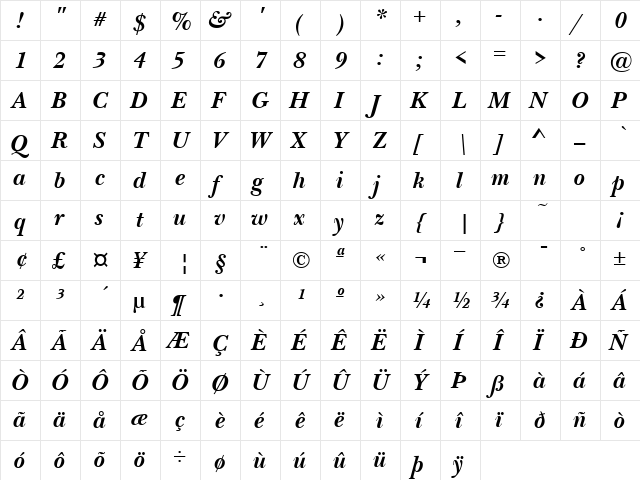
NewBaskerville BoldItalic
Design Context for NewBaskerville Typeface
NewBaskerville is a composed and adaptable typeface that performs quietly and consistently across a wide range of design contexts. The dynamic lean of this cut emphasises speed and emphasis in any layout. The heavy weight commands attention and anchors typographic hierarchies.
Pro Tip: Use NewBaskerville for emphasis, pull quotes, and subheadings where its slanted energy can add rhythm to the layout.